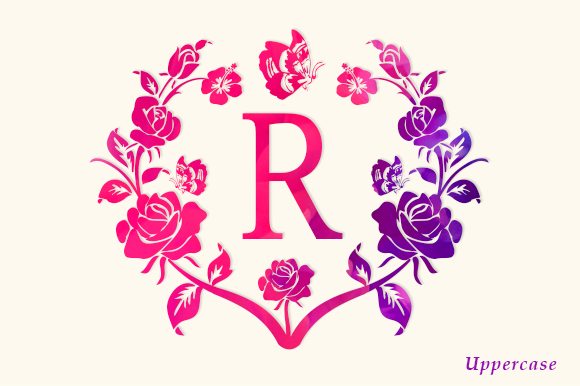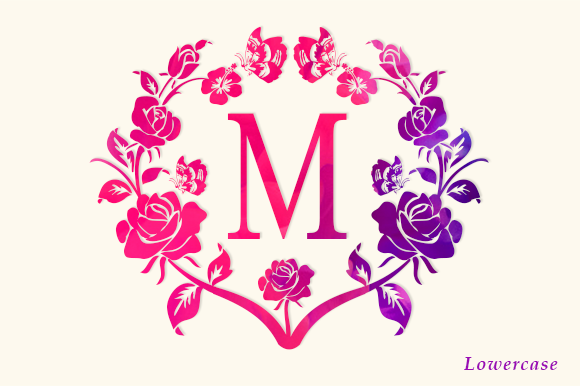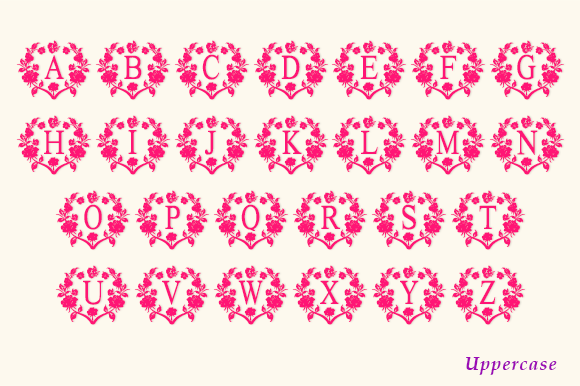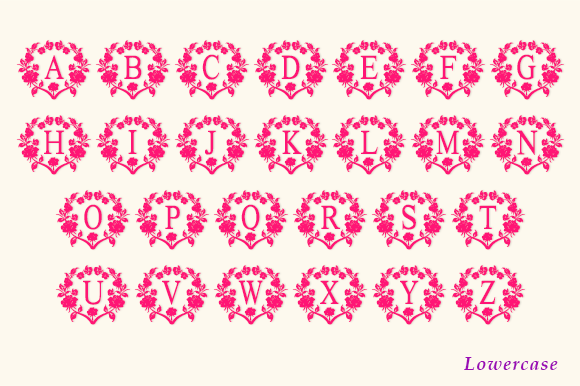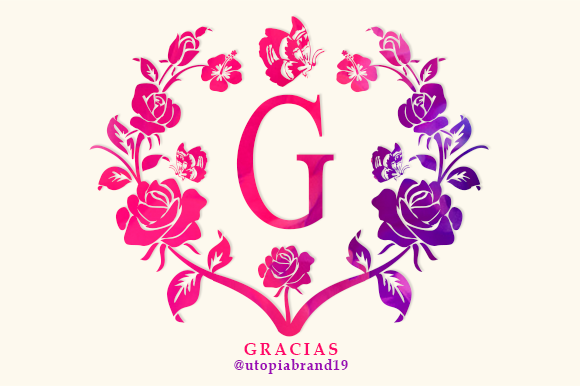
Discover the Timeless Charm of the Bella Rose Monogram Font
As you sit at your desk, surrounded by scraps of paper, paint swatches, and a million ideas swirling in your head, you finally stumble upon the perfect inspiration. The gentle curves and elegant flourishes of a beautiful font catch your eye, and you know exactly what you need to create something truly special.
That’s where the Bella Rose Monogram Font comes in – a charming decorative font that exudes an authentic, vintage charm. Perfect for crafting gorgeous invitations, beautiful stationery art, eye-catching social media posts, and cute greeting cards, this font is a must-have for any designer looking to add a touch of whimsy and romance to their work.
With the Bella Rose Monogram Font, designers can add a personal and unique touch to their projects, setting them apart from the crowd and making their work truly unforgettable. Whether you’re a seasoned pro or just starting out, this font is sure to become a trusted companion in your creative journey.
Bella Rose Monogram Font Key Features
- Unique Characteristics: This font is a beautiful, elegant monogram font with a floral design, making it perfect for wedding invitations, stationery, and other special occasions.
- Unique Features: Each letter is intricately designed with floral elements, making it a one-of-a-kind monogram font.
- Font Pairing: Can be paired with a variety of fonts, including serif, sans-serif, and script fonts, to create a unique and elegant look.
Bella Rose Monogram Font Review
Overall, I think the Bella Rose Monogram Font is a beautiful and elegant choice for a wide range of design projects. It’s perfect for adding a touch of sophistication and romance to wedding invitations, stationery, and even personal branding.
- ✨ Elegant and refined aesthetic: The font’s classic design makes it suitable for formal and high-end projects.
- ✨ Versatile: The Bella Rose Monogram Font can be used in a variety of contexts, from wedding invitations to personal branding.
- ✨ High-quality typography: The font’s clean lines and precise letterforms make it a pleasure to work with.
- ⚠️ Limited character set: The font is primarily designed for monogram purposes, which may limit its use in other contexts.
- ⚠️ Not ideal for small text: The font’s large, ornate design may make it difficult to read in small sizes or at low resolutions.
The Bella Rose Monogram Font is a beautiful and elegant choice for designers looking to add a touch of sophistication to their projects. While it may have some limitations, its versatility and high-quality typography make it a great addition to any designer’s toolkit.
The Bella Rose Monogram Font is perfect for:
Baby shower invitations and decor
Personalized gifts and home decor
For best results, use the font in combination with elegant graphics and designs to create a sophisticated and romantic look.
Q: What is the recommended font size for optimal legibility with the Bella Rose Monogram Font?
The recommended font size for optimal legibility with the Bella Rose Monogram Font is 14pt or larger. However, this may vary depending on the specific design context and intended use of the font.